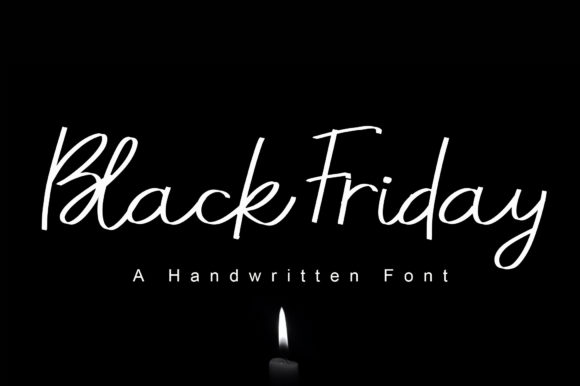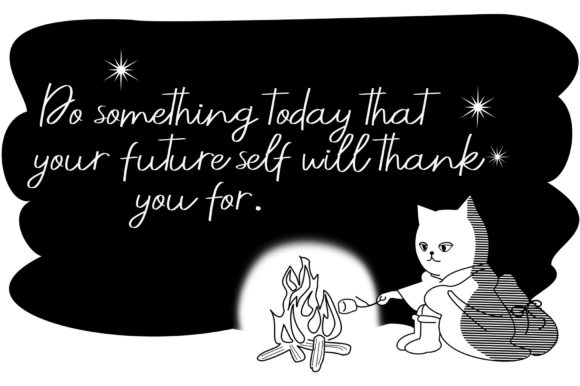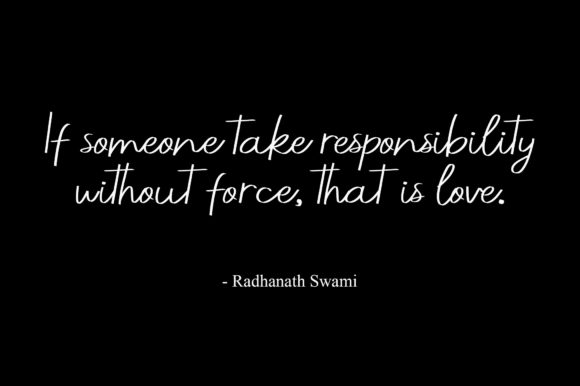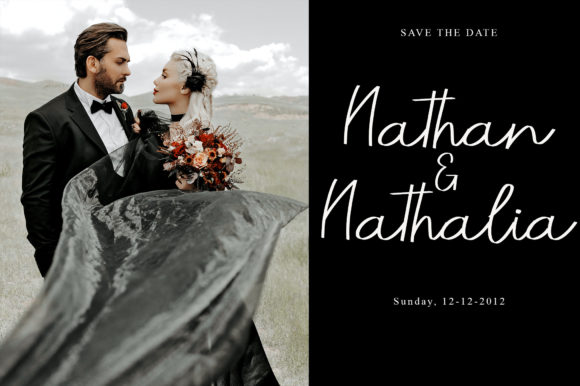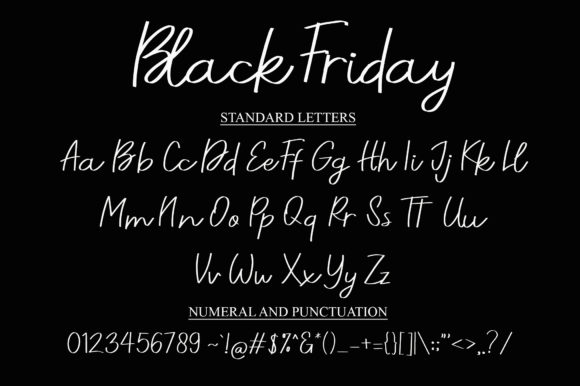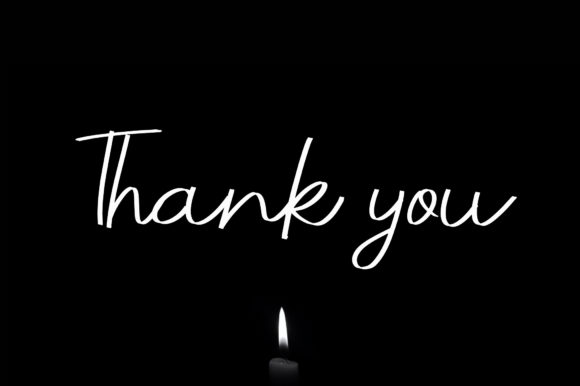
Black Friday Font
Black Friday is an elegant script font with a contemporary atmosphere and impeccable form, inspired by a timeless classic calligraphy. Not too thin and not too thick, balanced and varied, this font was designed to enhance the beauty of your projects.